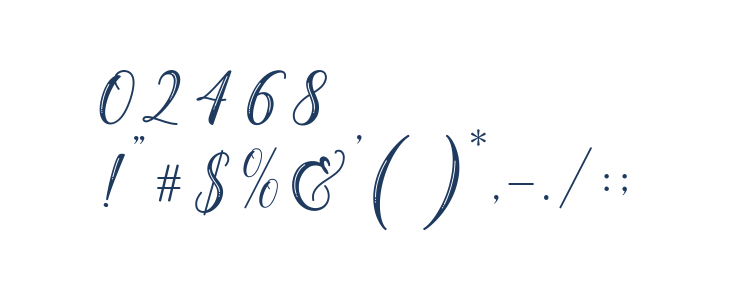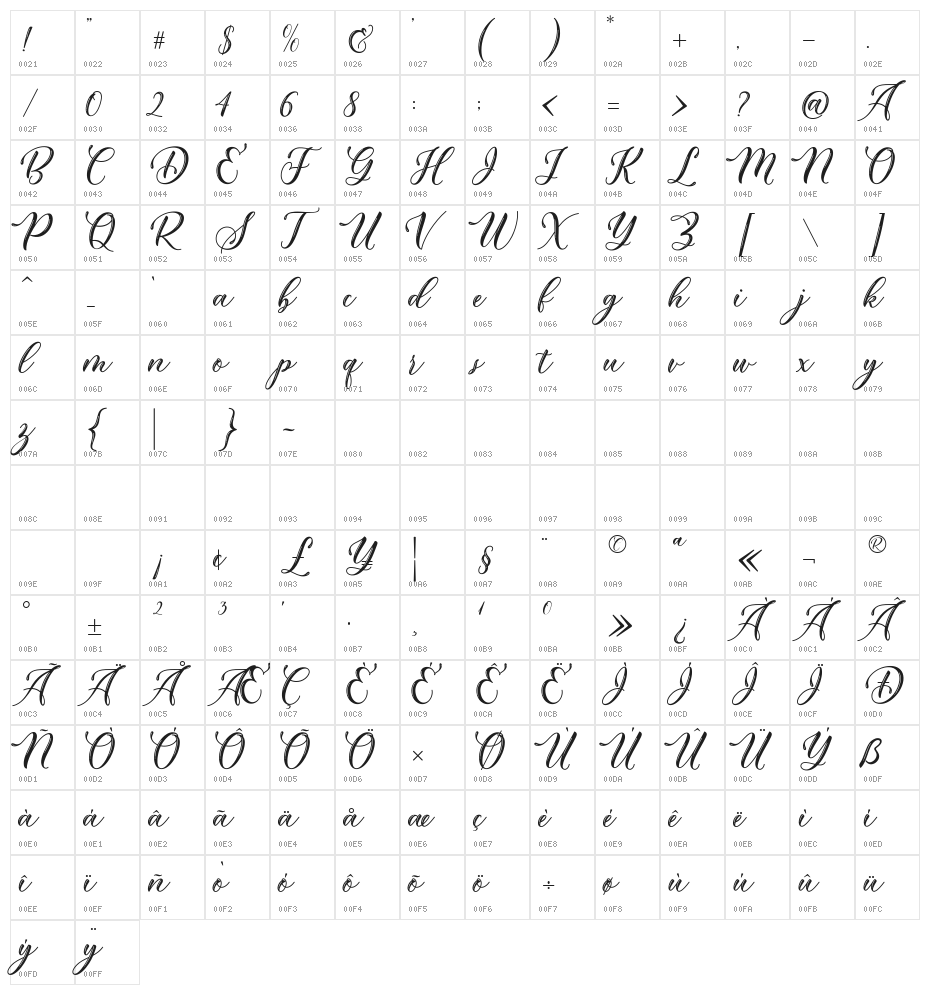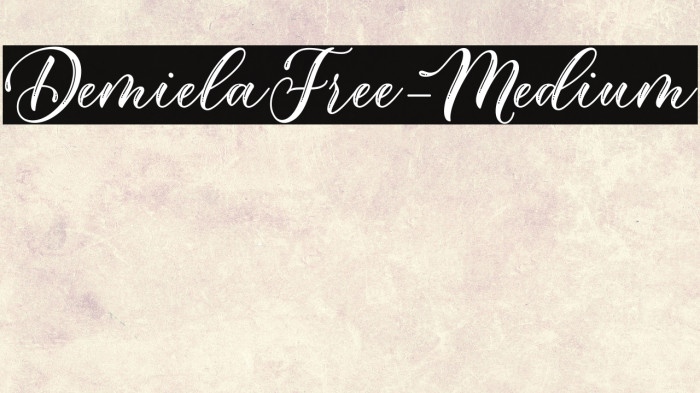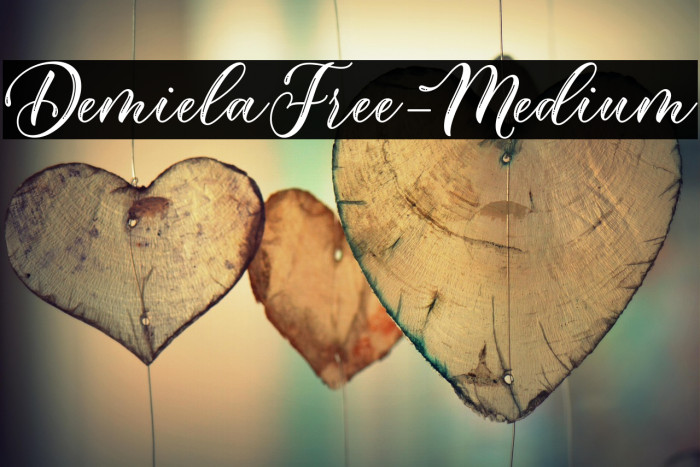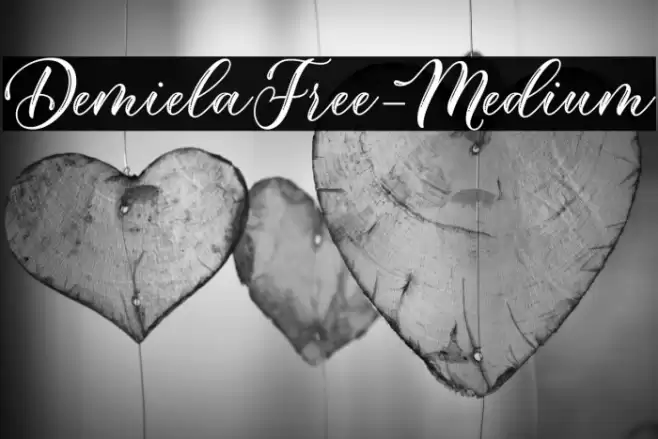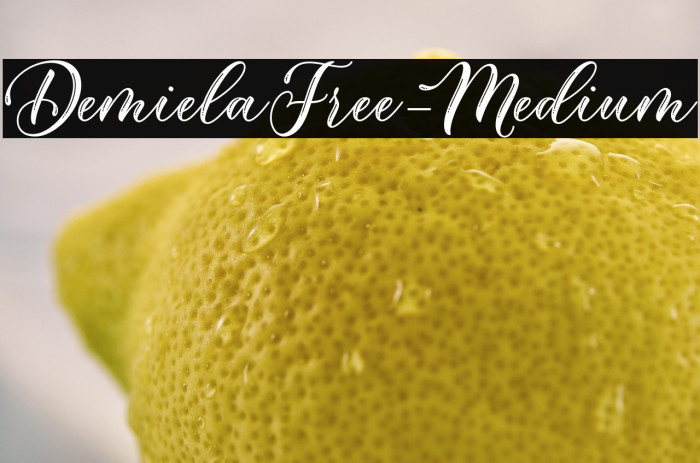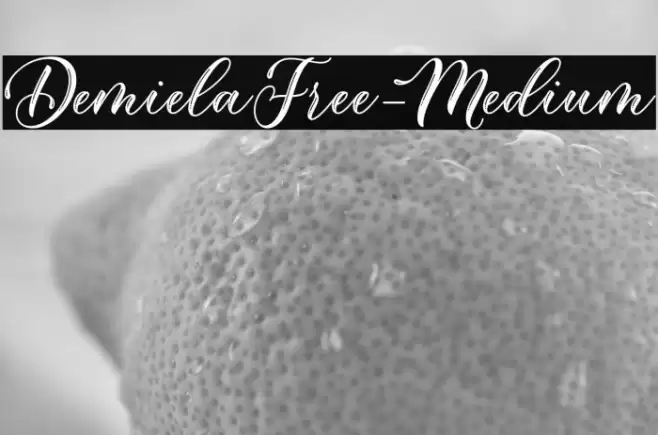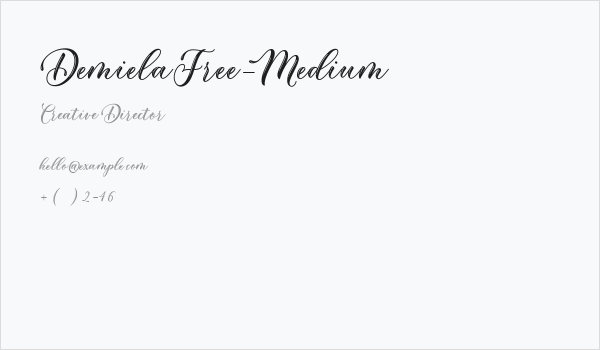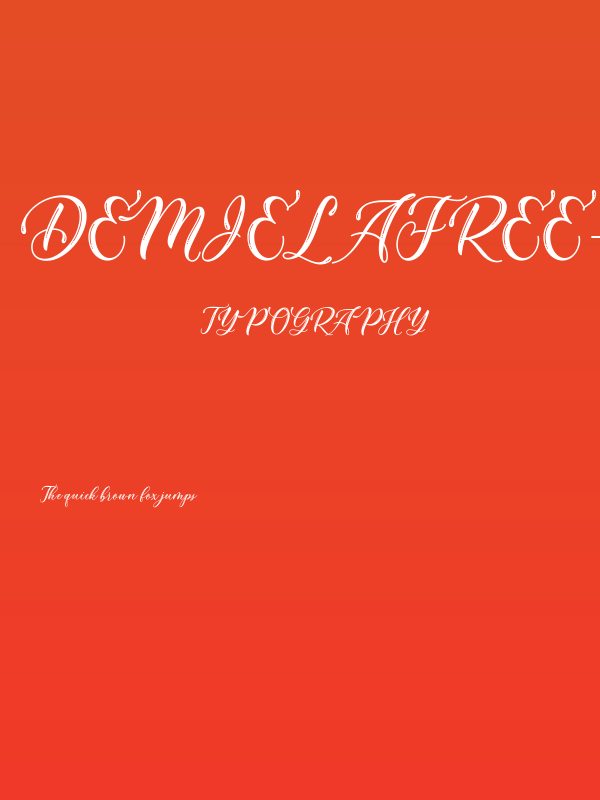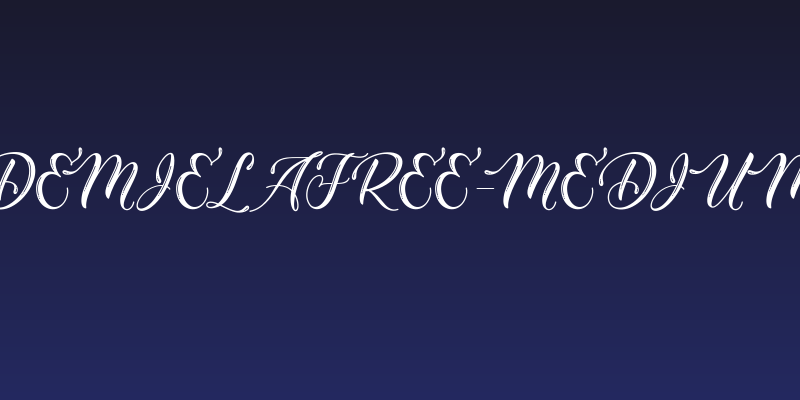
DemielaFree-Medium Font
DemielaFree-Medium Description
This elegant script font features flowing, cursive letterforms with a refined and sophisticated appearance. The uppercase letters are ornate, with intricate loops and swashes that add a touch of flair. The lowercase letters maintain a consistent style, with smooth, connected strokes that create a seamless flow. The numerals are stylish and match the overall aesthetic, while the special characters are thoughtfully designed to complement the font's graceful nature. The font exudes a sense of elegance and is perfect for projects that require a touch of class and sophistication.
| Proposed Projects | Ideal for wedding invitations, luxury branding, elegant stationery, and high-end product packaging. |